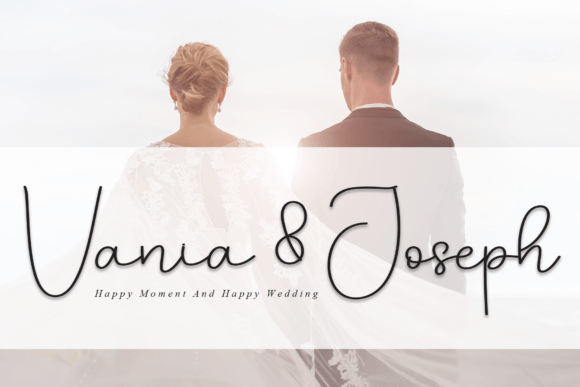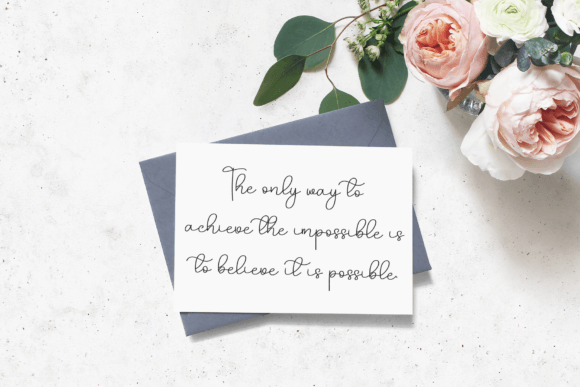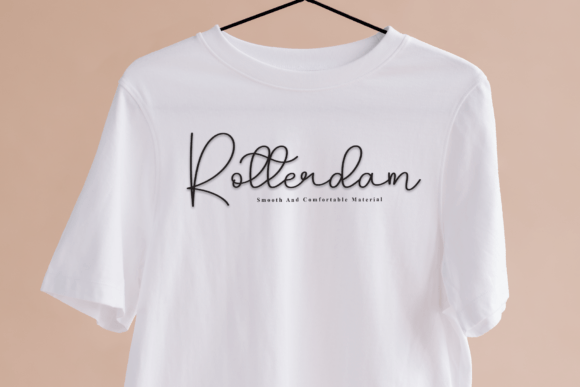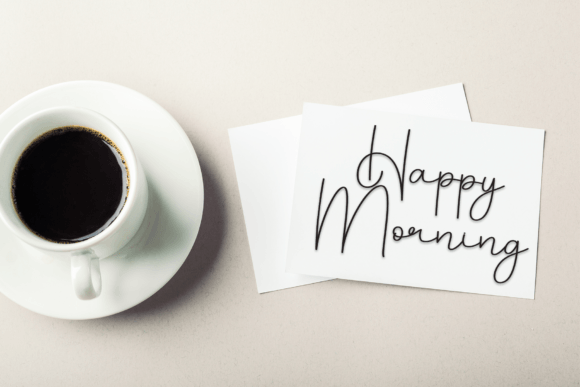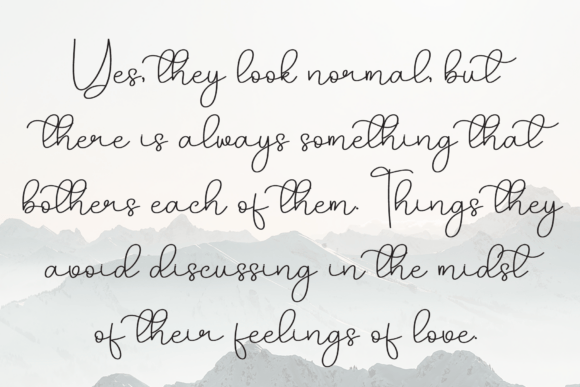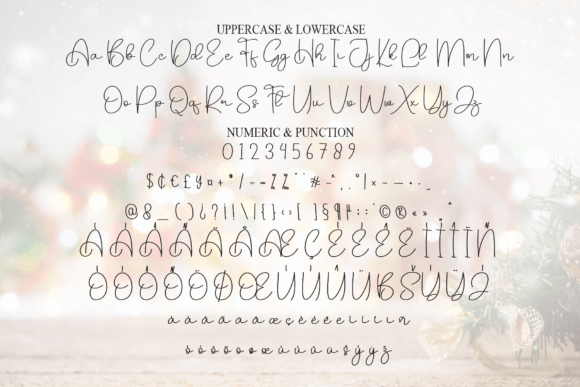
Christmas Wonderful Font: Add a Touch of Holiday Magic to Your Designs
Are you looking for a font that captures the essence of the holiday season? Look no further than Christmas Wonderful, a lovely handwritten font that brings joy and festivity to your designs. With its soft curves and playful letters, this font is perfect for creating holiday cards, festive invitations, and cheerful decorations that will make your projects stand out.
What Makes Christmas Wonderful Font So Special?
Christmas Wonderful is a unique and charming font that is sure to add a personal touch to your Christmas projects. Its soft, cursive letters are designed to evoke the feeling of handwritten holiday cards and decorations, making it perfect for designers and crafters who want to create a warm and inviting atmosphere. Whether you’re creating a holiday card, invitation, or decoration, this font is sure to bring a touch of magic to your writing.
Features of Christmas Wonderful Font
- Handwritten style: Christmas Wonderful is a handwritten font that features soft, cursive letters that are reminiscent of traditional holiday cards and decorations.
- Playful and festive: This font is designed to be playful and festive, making it perfect for holiday projects that require a touch of whimsy and fun.
- Soft curves: The soft curves of Christmas Wonderful give it a warm and inviting feel that’s perfect for holiday designs.
- Easy to read: Despite its playful nature, Christmas Wonderful is easy to read, making it perfect for use in holiday cards, invitations, and decorations.
Uses for Christmas Wonderful Font
Christmas Wonderful is a versatile font that can be used in a variety of holiday projects, including:
- Holiday cards: Create beautiful and personalized holiday cards with Christmas Wonderful, adding a touch of warmth and festivity to your greetings.
- Festive invitations: Use Christmas Wonderful to create festive invitations for holiday parties, gatherings, and events.
- Cheerful decorations: Add a touch of holiday magic to your decorations with Christmas Wonderful, using it to create signs, banners, and other festive elements.
- Digital projects: Christmas Wonderful is perfect for use in digital projects, such as holiday e-cards, social media graphics, and blog posts.
Christmas Wonderful is a lovely handwritten font that captures the joy and magic of the holiday season. With its soft curves and playful letters, it’s perfect for creating holiday cards, festive invitations, and cheerful decorations that will make your projects stand out. Whether you’re a designer or crafter, Christmas Wonderful is a great addition to your font collection, and is sure to bring a touch of holiday magic to your designs.